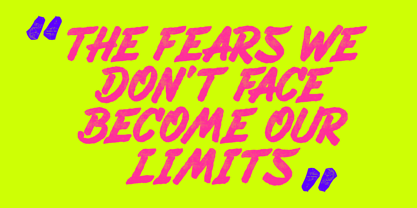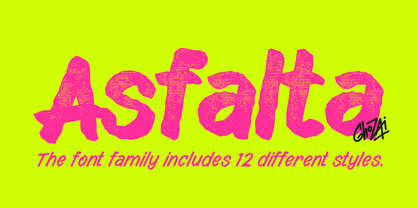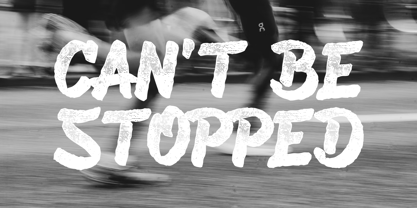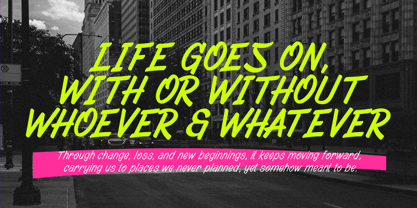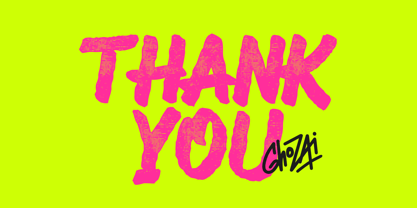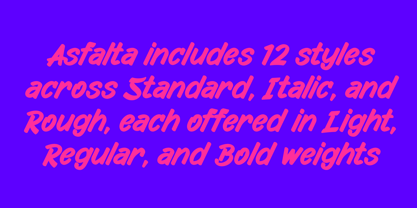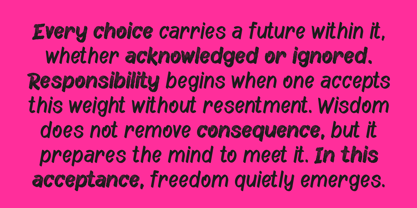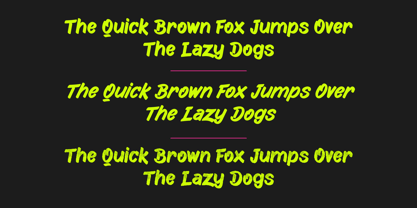
Asfalta
La famille de polices Asfalta a été conçue par Manzur Ghozaali et publiée par Ghozai Studio. Asfalta contient 12 styles et options de package familial. En savoir plus sur cette famille
Asfalta is a dynamic, marker pen-inspired font characterized by its edgy, italicized, modern design that mimics bold marker pen strokes. This versatile typeface is available in 12 styles, including regular, italic, and rough versions across light, regular, and bold weights. Its wide range and energetic style make it ideal for large display text that demands attention. With a variety of ligatures and alternate stylistic sets, Asfalta offers a natural, handwritten appearance that infuses personality and flair into your designs. Perfect for projects centered around sports, street culture, hip hop, and urban themes, this font is the ultimate choice for achieving an authentic handwritten aesthetic. Its adaptability ensures suitability for both digital and print media. Whether you're crafting posters, logos, or social media graphics, Asfalta will provide your project with an unmistakable, eye-catching edge.